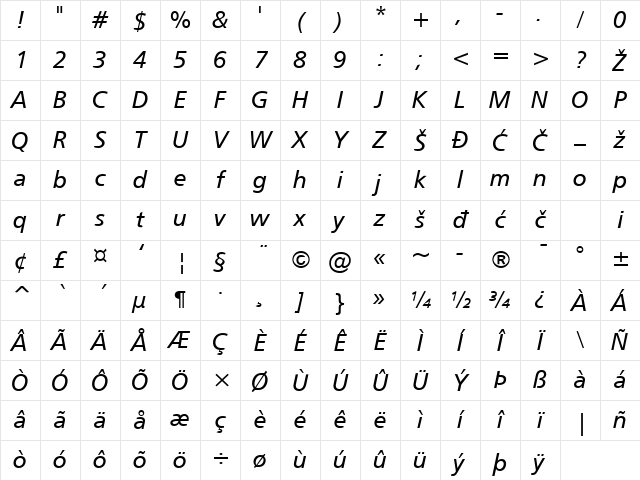
Complete 101! Shinin' Star Regular glyph index. Displaying only characters natively supported by 101! Shinin' Star Regular font.
101! Shinin' Star is a composed and adaptable typeface that performs quietly and consistently across a wide range of design contexts.
Pro Tip: Use 101! Shinin' Star in both headline and body roles to test its range before committing to a single application.